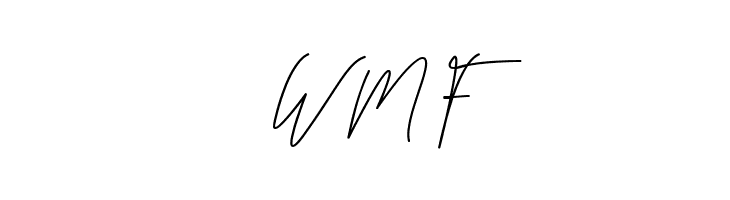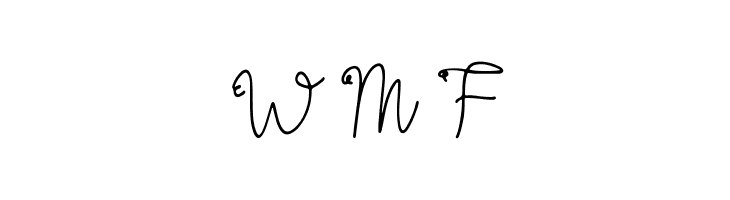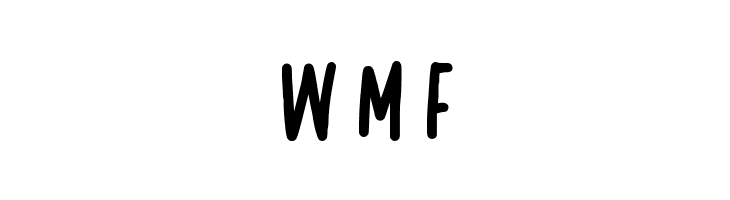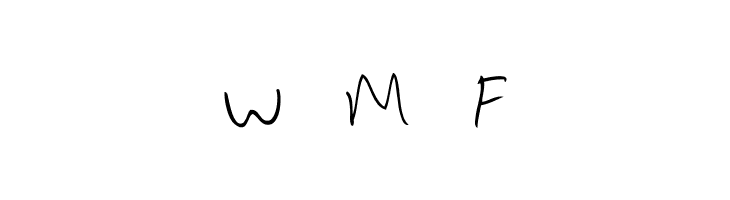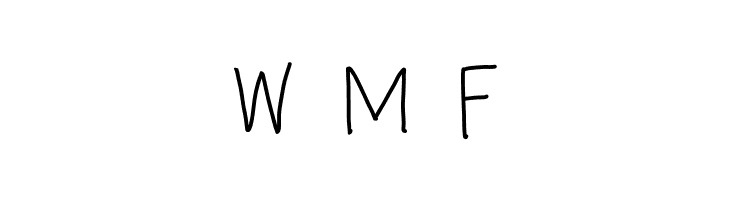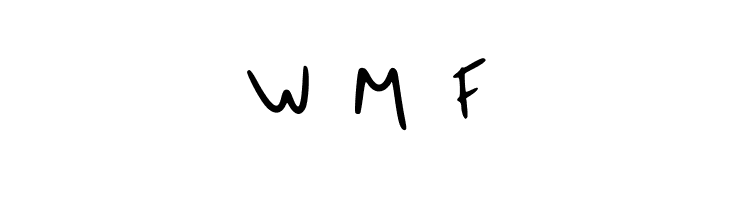
A hand-drawn, charcoal-style font with an organic and playful appearance.
A playful, handwritten font with bold strokes and a whimsical style.
Playful, rounded sans-serif with a hand-drawn look.
A bold, hand-drawn sans-serif font with playful, rounded forms.
Casual handwritten font with rounded, playful characters.
A playful, hand-drawn font with a casual and whimsical style.
A playful, hand-drawn font with tall, narrow letters and a whimsical style.
Tall, narrow handwritten sans-serif with playful, irregular lines.
Elegant handwritten script font.
A fluid, cursive handwritten font with elegant, interconnected letters.
A dynamic, hand-drawn font with an expressive and artistic style.
A playful, handwritten font with smooth, rounded edges and a casual style.
A dynamic and fluid script font with elegant, flowing letterforms.
Casual handwritten script font.
A playful handwritten font with smooth curves and elongated forms.
Playful handwritten font with a casual vibe.
A lively, cursive handwritten font with fluid strokes and dynamic energy.
A playful, handwritten font with a casual and dynamic style.
A playful handwritten font with smooth, slanted strokes and a casual feel.